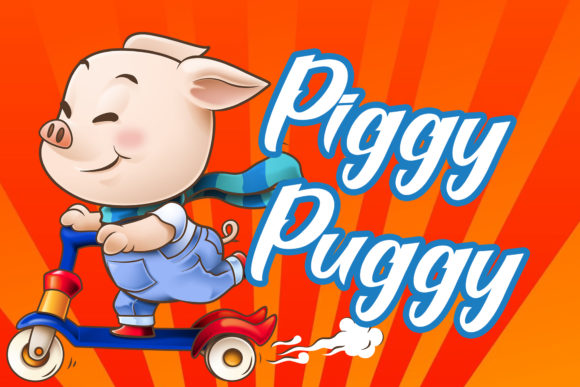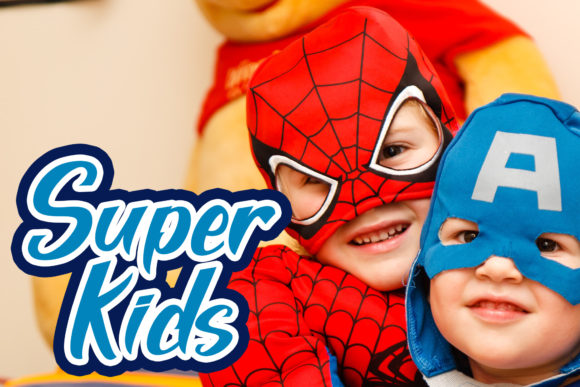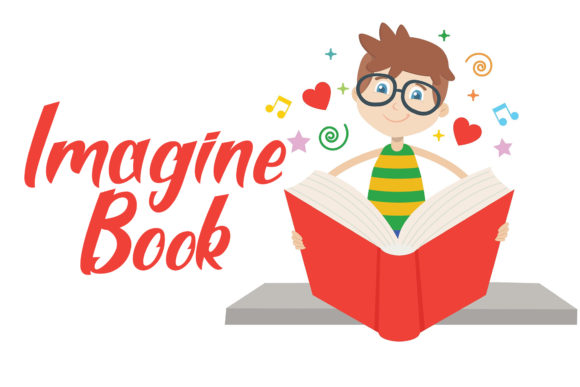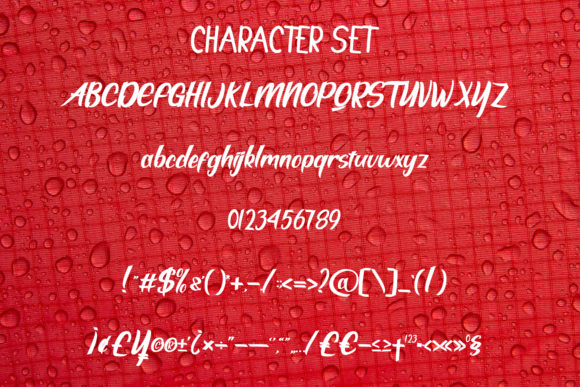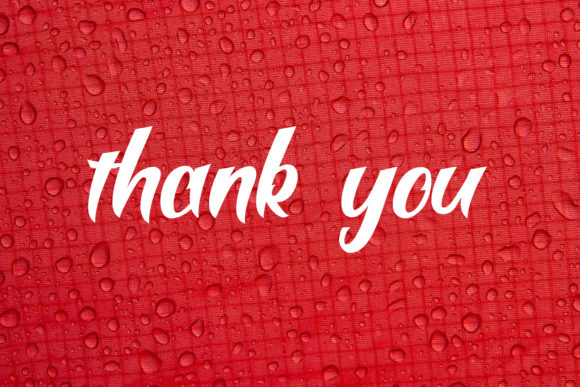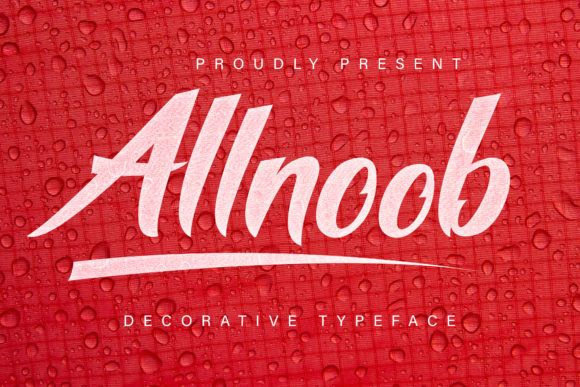
Introducing Allnoob Font: Elevate Your Designs with Elegance and Charm
In the world of typography, few fonts manage to strike a balance between elegance and authenticity. Allnoob Font is one such gem that has captured the hearts of designers and crafters alike. This beautiful script font radiates charm and sophistication, making it the perfect addition to your typography arsenal. In this article, we’ll dive into the world of Allnoob Font, exploring its features, uses, and benefits, as well as provide tips on how to incorporate it into your next design project.
The Allure of Allnoob Font
Allnoob Font is an equally elegant and authentic script that exudes a sense of refinement and luxury. Its flowing lines, intricate details, and classic style make it an excellent choice for designers looking to add a personal touch to their work. Whether you’re creating a brand identity, crafting a wedding invitation, or designing a product label, Allnoob Font is sure to impress.
Key Features of Allnoob Font
- Elegant and Authentic: Allnoob Font boasts a sophisticated and genuine look that’s perfect for high-end designs.
- Script Style: This beautiful script font features flowing lines and intricate details, adding a touch of elegance to any design.
- Versatile: Allnoob Font can be used for a wide range of design projects, from branding and advertising to packaging and stationery.
- Easy to Read: Despite its ornate style, Allnoob Font remains highly legible, making it suitable for body text and headlines.
Uses of Allnoob Font
Allnoob Font is a versatile typeface that can be used in various design projects, including:
- Branding and Identity: Create a lasting impression with Allnoob Font, perfect for logos, business cards, and letterheads.
- Wedding and Event Design: Add a touch of romance and sophistication to your wedding invitations, save-the-dates, and event branding.
- Packaging and Label Design: Stand out on store shelves with Allnoob Font, ideal for product labels, packaging, and point-of-sale displays.
- Stationery and Paper Goods: Elevate your stationery, journals, and paper crafts with the elegance of Allnoob Font.
Tips for Using Allnoob Font
To get the most out of Allnoob Font, follow these expert tips:
- Pair with Contrasting Fonts: Combine Allnoob Font with a clean, sans-serif font to create visual interest and hierarchy.
- Use for Headlines and Titles: Take advantage of Allnoob Font’s elegance and charm by using it for headlines, titles, and key messages.
- Experiment with Colors and Textures: Add depth and dimension to your design by experimenting with different colors, textures, and backgrounds.
Allnoob Font is a stunning script font that offers a perfect blend of elegance and authenticity. Its versatility, readability, and charm make it an excellent choice for designers and crafters looking to elevate their designs. Whether you’re working on a branding project, wedding invitation, or packaging design, Allnoob Font is sure to add a personal touch and make your work stand out. So why wait? Discover the beauty of Allnoob Font and take your designs to the next level.